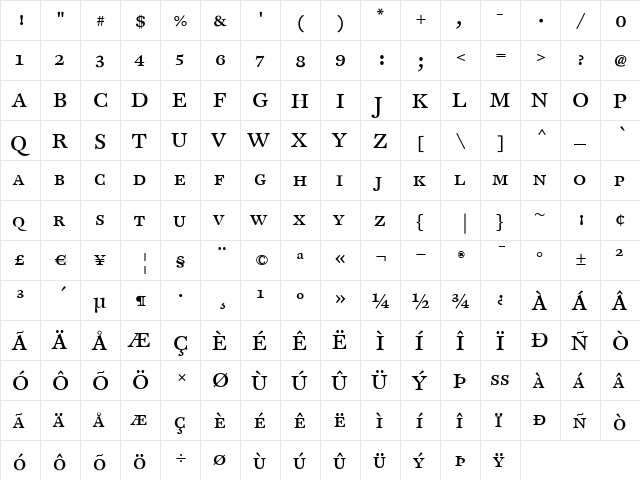
CliffordNine Regular Font Preview
CliffordNine Regular
CliffordNine Regular Font Details
| Foundry | Akira Kobayashi, . Published by FontShop International. FontFont Release |
Design Context for CliffordNine Typeface
CliffordNine takes a measured approach to typography — its balanced proportions and neutral character make it a reliable workhorse for both digital and print work.